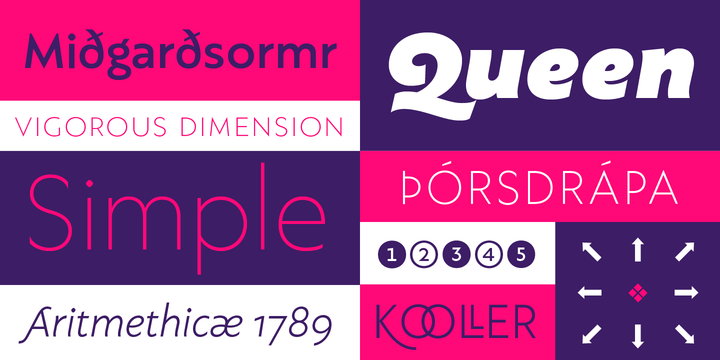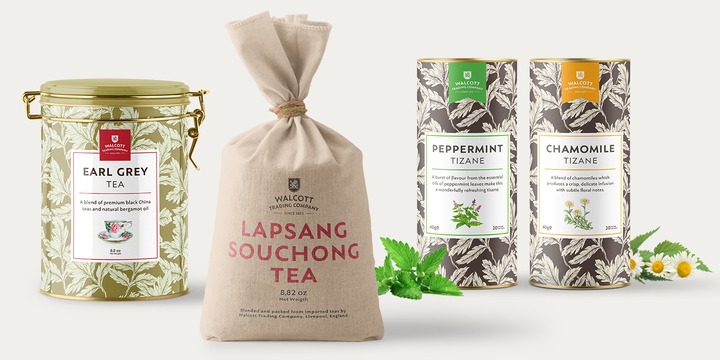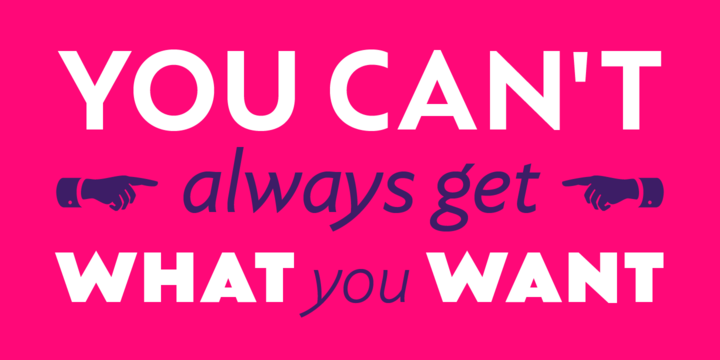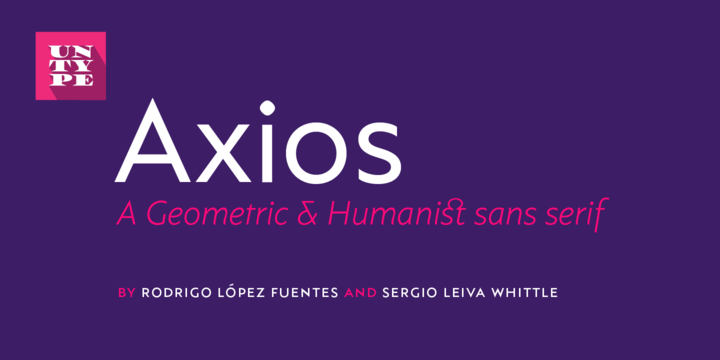
Axios was designed, on one side, due to its rational intention of searching the beauty on the purity of its forms, assuming the language of the early XX century geometric sanserifs, but its structure foundations are deeply attached into the classic typography; because while its uppercase proportions proceed form the roman canon, its lowercase are constructed following the humanist calligraphy ductus.
This blend produce a typeface of modern, clean and minimalist personality that has implicit, on its core, a classic traditional spirit.
All this gives Axios that form and function balance which allow it freely travel through a diverse range of fields like long text settings, branding or signalling systems with grace and naturality.
More Axios includes an extensive repertoire of ligatures, stylistic alternates, swashes and borders, in a set of more than 1000 glyphs per style with support for over 200 latin languages.